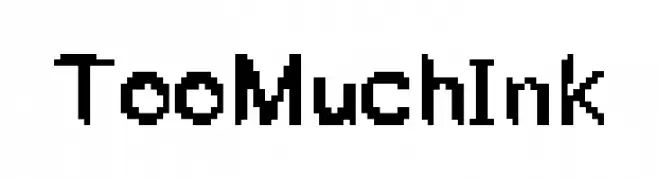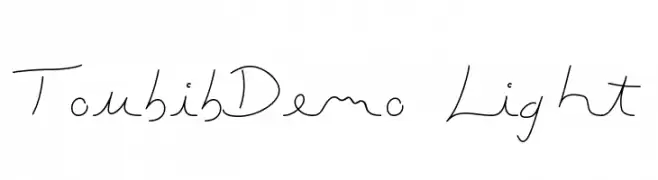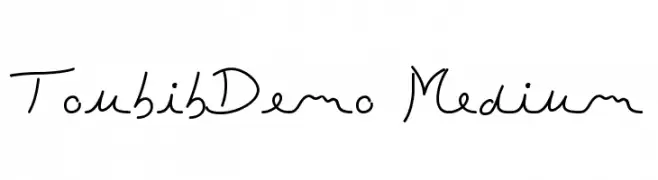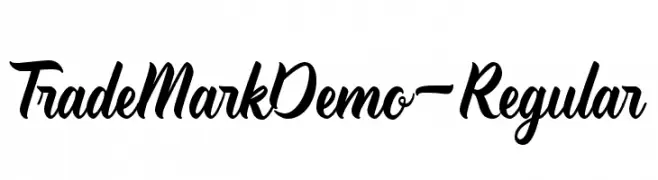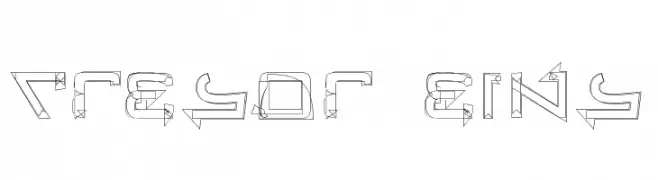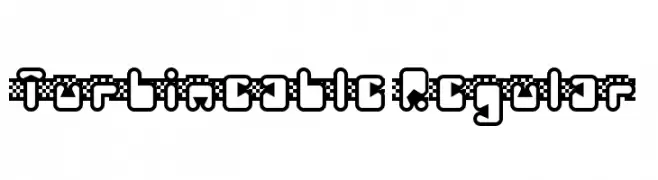
( K Guillory )
A bold, pixelated font with a retro digital style.
( MRfrukta - Alex Frukta - www.behance.net/MRfrukta )
A bold, playful font with a retro aesthetic, ideal for headlines.
( JBFoundry - Jean Boyault - jean.boyault.pagesperso-orange.fr/ )
A playful, casual handwritten font with dynamic strokes and a relaxed vibe.
( JBFoundry - Jean Boyault - jean.boyault.pagesperso-orange.fr/ )
A light, handwritten font with thin, flowing strokes and a casual elegance.
( JBFoundry - Jean Boyault - jean.boyault.pagesperso-orange.fr/ )
A playful handwritten font with fluid, slightly irregular strokes.
( James Greenwood )
A bold, illustrated font featuring rugged characters within each letter.
( Insane Machina - Fernando Henrique de Sousa - www.insanemachina.com )
A playful, hand-drawn font with a whimsical and energetic style.
( Jroh Creative - jrohcreative.com/ )
A bold, flowing script font with high contrast and elegant, connected characters.
( Michael Bulgrin - bulgrin.de )
A futuristic, geometric font with sharp, angular lines and a digital aesthetic.
( MrtheNoronha - Daniel Noronha )
A bold, playful font with a checkered pattern and rounded characters.